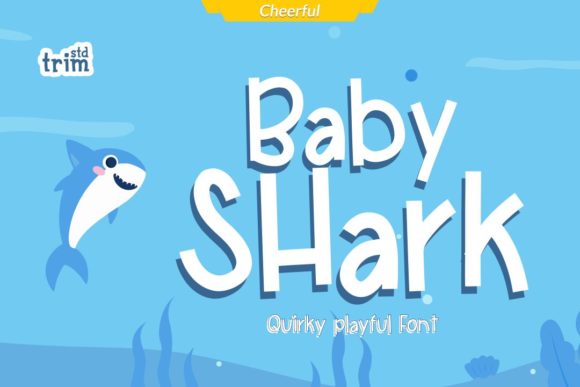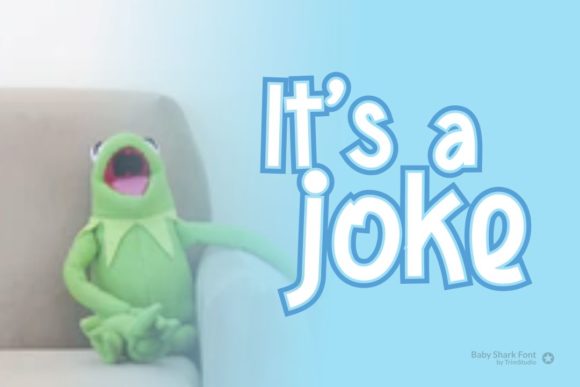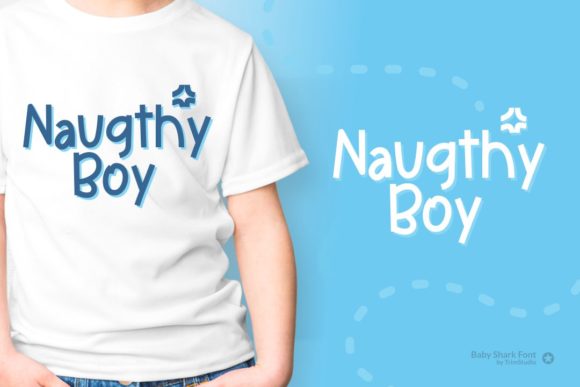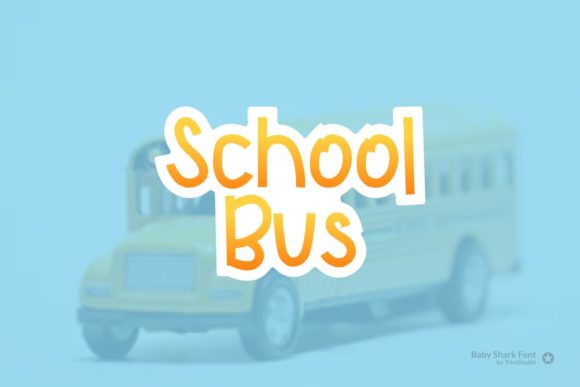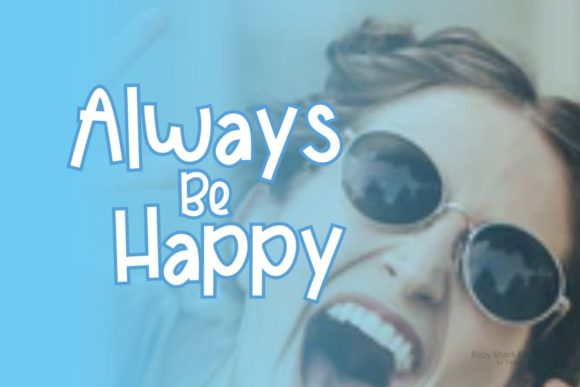
About Baby Shark Font
Baby Shark is a delightful and playful script font that brings a sense of childlike wonder to your designs. Its bold and cute appearance makes it the perfect choice for projects aimed at kids and schools, adding a touch of whimsy and joy to any creative endeavor.
With Baby Shark, you can infuse your designs with a sense of fun and playfulness that appeals to children of all ages. Whether you’re creating educational materials, kids’ book covers, posters, or school projects, this font will brighten up your designs and capture the imagination of young audiences.
The bold and curvy letters of Baby Shark make it easy to read, even for young learners, while its cute and friendly appearance adds a touch of personality to your typography. The childlike playfulness of this font will engage and entertain kids, making it an ideal choice for various children’s products and designs.
Add Baby Shark to your design toolkit and explore its endless creative possibilities. Use it in coloring books, activity sheets, educational games, and more to create a captivating and engaging experience for kids. Its versatility also allows you to incorporate it into branding materials for kids’ products or services, infusing your designs with a sense of innocence and charm.
From classroom materials to children’s books and beyond, Baby Shark is a font that sparks joy and brings a smile to anyone who encounters it. Its playful nature and childlike charm make it a wonderful addition to any designer’s collection, whether you’re a professional graphic artist or a parent creating personalized projects for your little ones.
In conclusion, Baby Shark is a bold and cute script font that adds childlike playfulness to any kids and school project. Its friendly and engaging appearance makes it perfect for various children’s designs, sparking joy and creativity wherever it’s used. Embrace the creativity and charm of Baby Shark to create memorable and delightful experiences for young audiences.